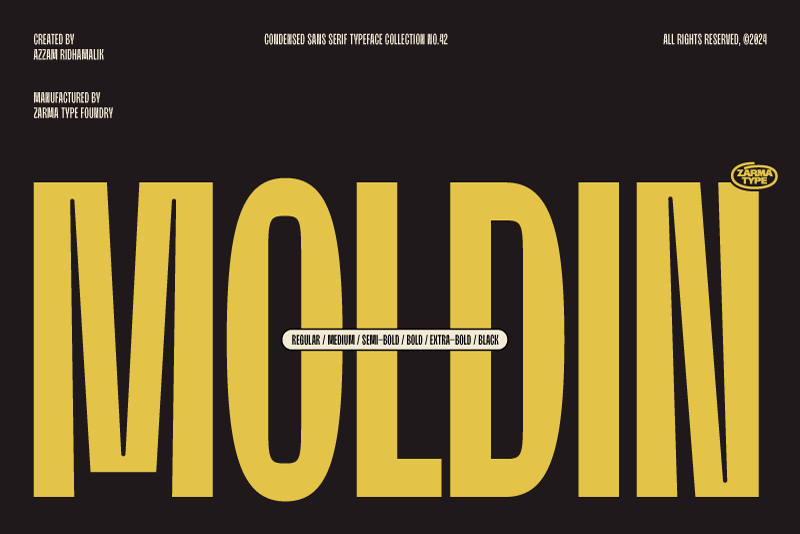
Moldin Regular Font
About Moldin Regular
Moldin is a bold condensed sans serif font family designed to deliver maximum impact in display and headlines. Available in 6 weights from Regular to Black and offering both static and variable formats, Moldin's industrial-inspired geometry and contemporary aesthetics make it perfect for branding, posters, editorial designs, and digital media. Its clean letterforms and optimized kerning ensure excellent legibility, even in condensed forms.